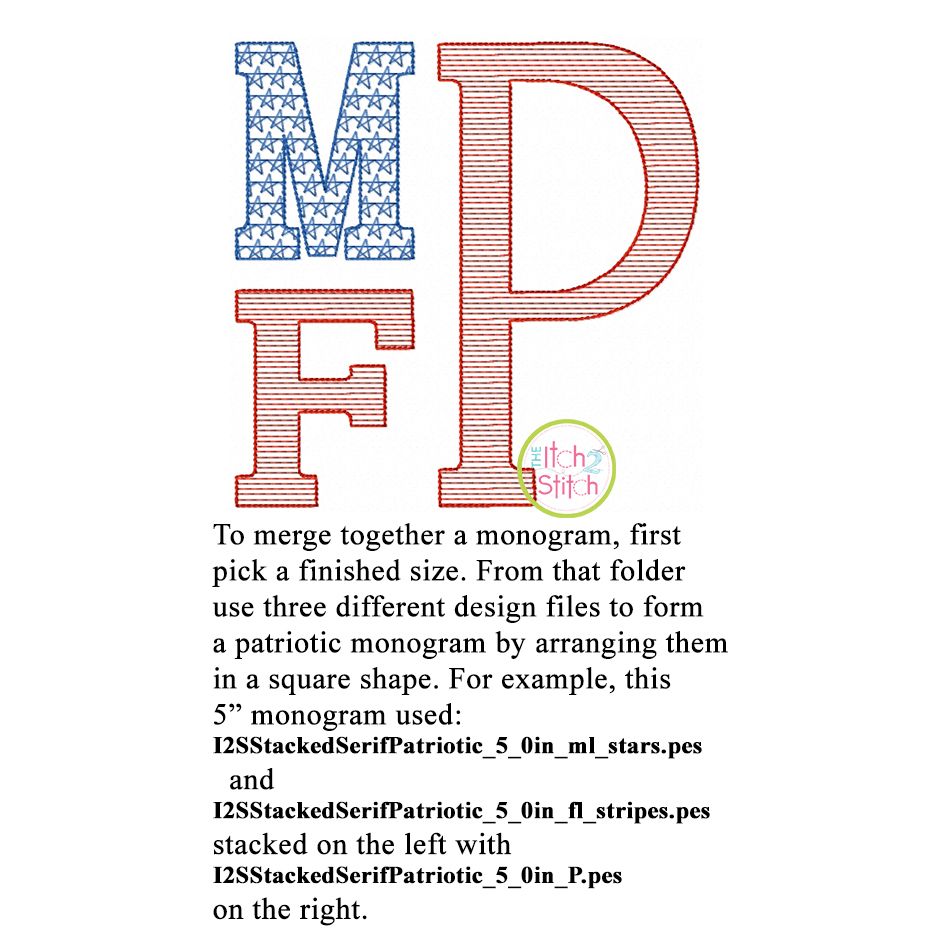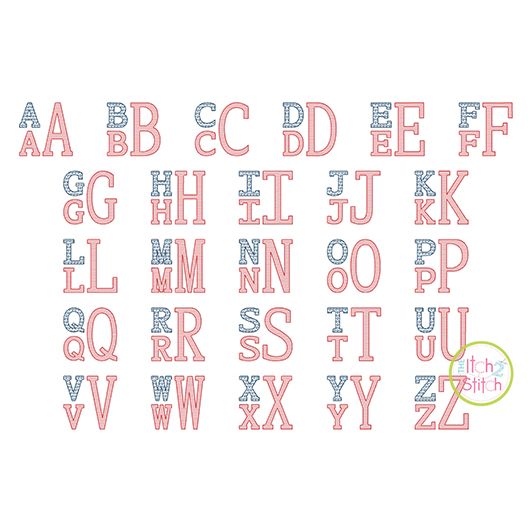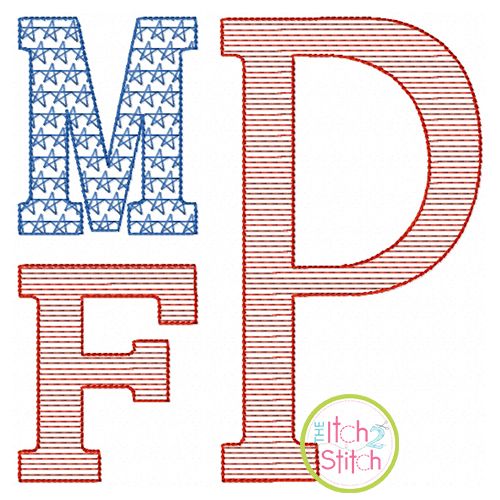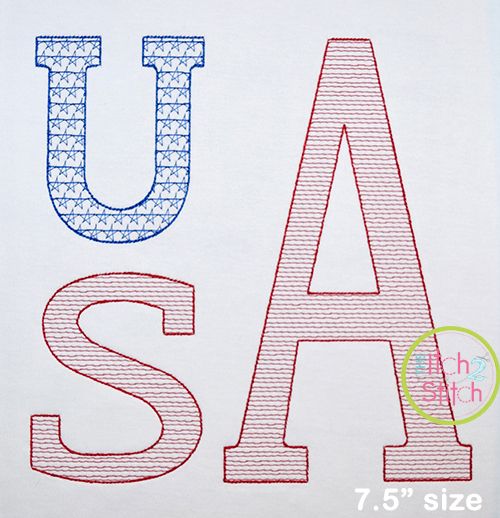
Stacked Serif Patriotic Motif Filled Monogram Embroidery Font
You will receive all Aa-Zz letters in stripes and a-z letters in stars (78 files) in ten sizes. Please note this is not applique nor is it a traditional satin or fill stitch font. The light and airy"motif" fill pattern allows for a quick stitch out. The "lowercase" letters are available in two styles: a star motif fill and also a stripes motif fill. Each letter is finished off with a triple bean stitch outline. Please refer to the close up image above. We do not recommend resizing this font in software.
To create a square shaped monogram with this font, use two small "lowercase" letters stacked on the left and a large "capital" letter on the right from the same size folder. To create the American Flag look, use the star motif lowercase letter on the top left.